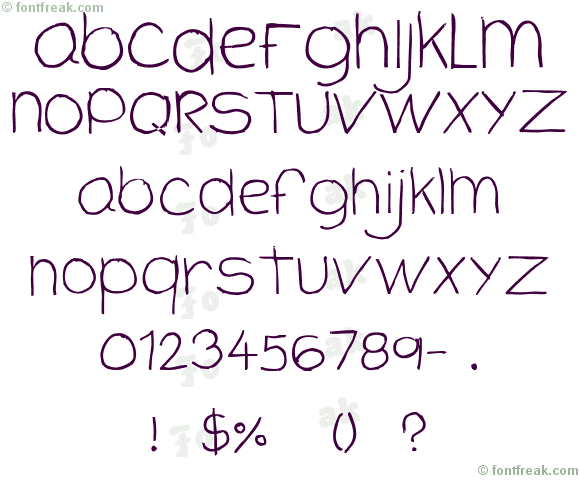
CloutierScript Regular
About CloutierScript Regular
CloutierScript Regular is a delightful script font from Cloutierfontes that embodies a charming and artistic flair. As a handwritten-style typeface, it captures the essence of personal touch and creativity, making it an ideal choice for a variety of design projects. The font features a medium stroke weight with gentle contrasts that lend it a warm and inviting appearance. Its slightly irregular spacing enhances the handwritten feel, giving each letter a unique character that feels both casual and elegant.
This font excels in several applications, making it a versatile addition to any designer's toolkit. It is particularly well-suited for wedding invitations, where its romantic aesthetic can beautifully convey heartfelt sentiments. Additionally, CloutierScript Regular shines in crafting eye-catching restaurant menus, adding a touch of sophistication that invites diners to explore the culinary offerings. For creative projects like greeting cards or personal branding materials, this font can infuse a sense of authenticity and warmth. Movie posters and promotional materials can also benefit from its distinctive style, drawing in viewers with its artistic flair.
What truly sets CloutierScript Regular apart is its ability to blend professionalism with a personal touch. This font effortlessly communicates creativity while maintaining readability, making it a standout choice for anyone looking to make a lasting impression. For those interested in enhancing their designs, the CloutierScript Regular font free download is a fantastic opportunity to explore its potential.